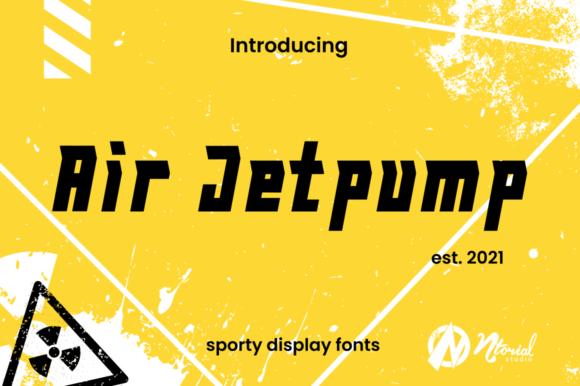
I still remember the frustration of working on a project, hours poured into every detail, and then getting stuck on one thing: the font. It was for a futuristic tech brochure, and I needed something that screamed innovation and coolness. I scrolled through font libraries, but nothing seemed quite right. That was until I stumbled upon the **Air Jetpump Font**.
It was love at first sight! The robotic look, the unique shapes, and the imposing presence it commanded on the page. It was exactly what I needed to give my project that distinct touch. In this article, I’ll share my experience with Air Jetpump, its features, how to use it on different platforms, and some alternatives you might like.
Air Jetpump Font: The First Impression
Air Jetpump is a cool, robotic-looking, and unique display font designed to make a statement. Its uniquely shaped letters make it imposing and versatile, suitable for a wide range of creative projects that require a distinct touch.
- ✨ Unique Design: The font’s robotic appearance is eye-catching and perfect for projects that need a futuristic or techy vibe.
- ✅ Versatility: It can be used for titles, headings, or any place you want to draw attention.
- 💡 Creative Freedom: The font’s distinctiveness gives you a lot of room for creative expression.
⚠️ While Air Jetpump is fantastic for display purposes, it might not be the best choice for body text due to its unique design. It’s also worth noting that some of the more intricate details might not render well at very small sizes.
🤔 One thing to consider is that, due to its distinctive style, it might not pair well with every font. You’ll need to choose complementary fonts carefully to ensure readability and aesthetic balance.
Exploring OpenType Features, Glyphs, or Stylistic Alternates
One of the exciting aspects of Air Jetpump is its support for OpenType features. These allow you to access additional glyphs or stylistic alternates that can add more variety to your text. For example:
- Stylistic Sets: Some fonts offer stylistic sets that change the appearance of your text in subtle but interesting ways.
- Glyphs: Access to a wide range of glyphs can help you customize your text further, adding unique touches to your design.
The story behind Air Jetpump’s creation is one of innovation and a passion for futuristic design. The designer, inspired by early sci-fi movies and robotics, aimed to create a font that embodied the spirit of the future. Through meticulous design and attention to detail, Air Jetpump was born, ready to leave its mark on the design world.
Q: Is Air Jetpump suitable for body text?
A: While Air Jetpump is stunning for display purposes, it’s not ideal for body text due to its unique design and potential readability issues at smaller sizes.
Q: Does Air Jetpump support OpenType features?
A: Yes, Air Jetpump supports OpenType features, allowing you to access a range of glyphs and stylistic alternates to customize your text.